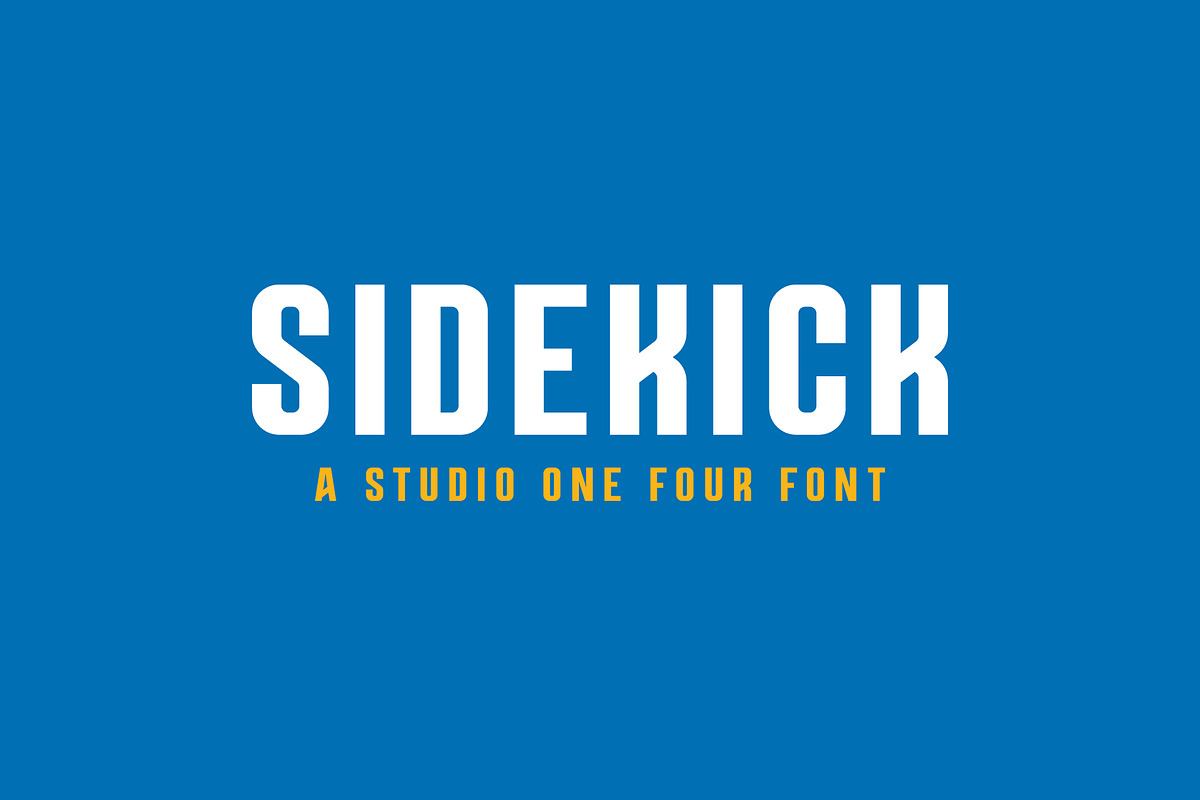
Sidekick Font Free Download is a bold, dynamic typeface designed to bring energy and impact to your creative projects. With its strong letterforms and slightly condensed style, Sidekick is perfect for headlines, logos, posters, streetwear designs, and anything that needs a confident, modern look.
This font strikes a balance between clean design and edgy personality. Its sharp lines and balanced spacing make it highly legible, while its bold structure ensures it stands out across both print and digital formats. Sidekick includes uppercase characters, numerals, and essential punctuation—everything you need for strong, attention-grabbing typography.
Whether you're creating a sports brand, music cover, or promotional content, Sidekick Font Free Download adds that extra punch your visuals need. Try it out in personal or demo projects, and don’t forget—a commercial license is required for professional use. Power up your design game with the bold style of this impactful font.